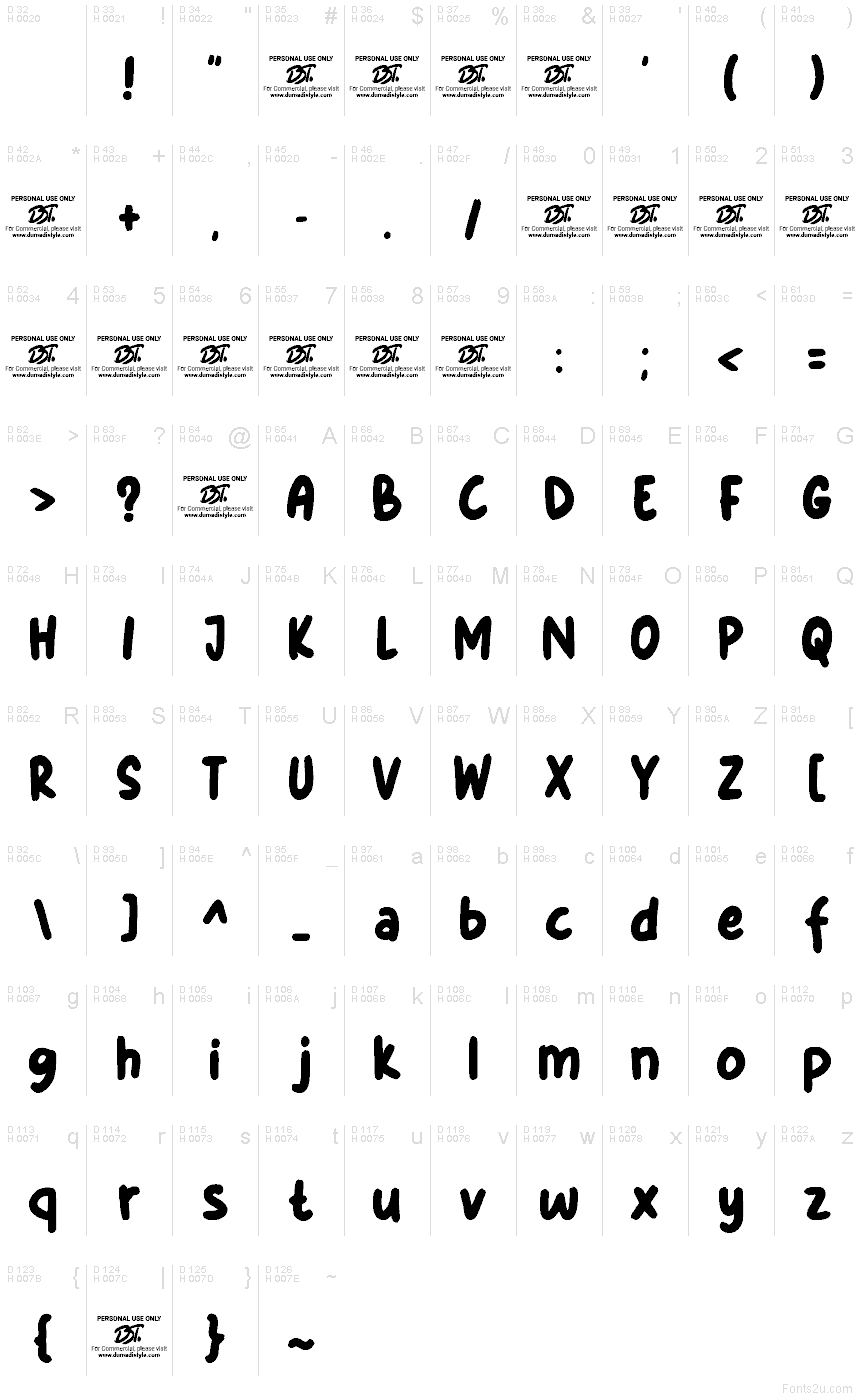
Baby Kimo
Baby Kimo font is a free display font designed by DumadiStyle with comic, rounded, and friendly letterings. The bold character set is approachable and casual, which makes it contemporary yet suitable for reading text in printed content for children or web platforms promoting innovative ideas. A unique font design with smooth transitions allows enjoyable designs for many applications.
In addition to children’s publications, Baby Kimo can be used for packaging targeting young audiences as well as personal branding. Whether printed or digital, its potential covers posters, packaging labels, advertisements of summer events, innovative products that require colorful fun labels or logos related to the food industry like yogurts and candies.